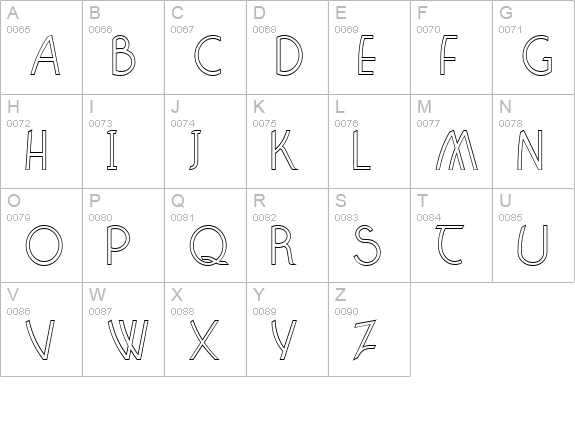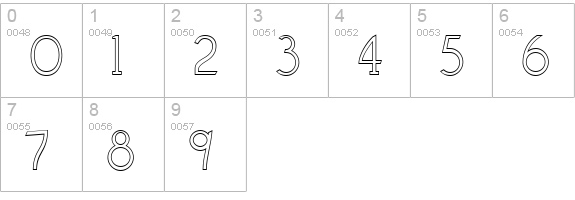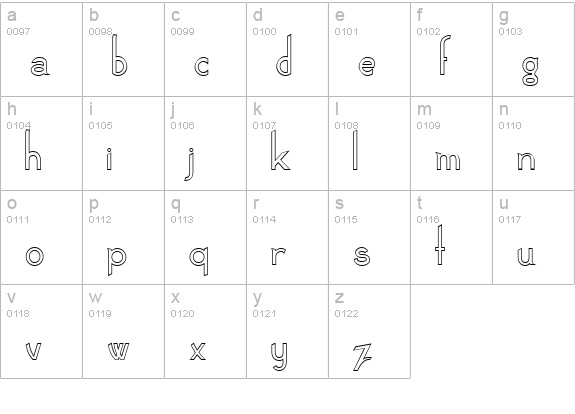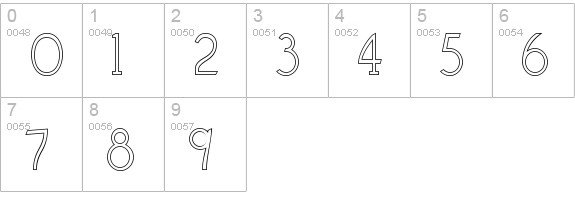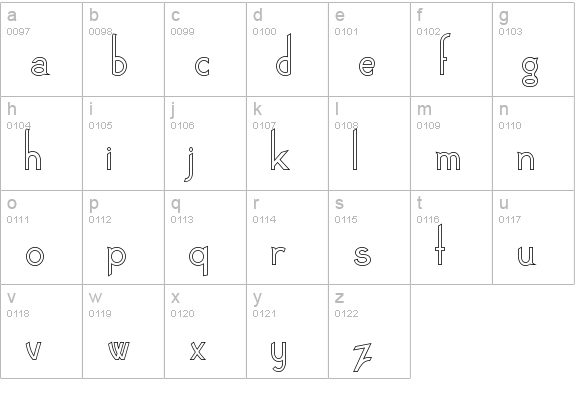
Claritty_Outline Font Details
Claritty_Outline font is a modern and stylish typeface that exudes elegance and sophistication. With its clean lines and sleek design, this font is perfect for adding a touch of class to any project. The outline style of Claritty_Outline gives it a contemporary feel, making it ideal for a variety of uses, from branding to graphic design. What sets Claritty_Outline font apart is that it is available for free download at FontsMarket.com. This means that you can add this beautiful font to your collection without any cost, making it a fantastic choice for both personal and commercial projects. Don't miss out on the opportunity to elevate your designs with Claritty_Outline font - download it for free today!